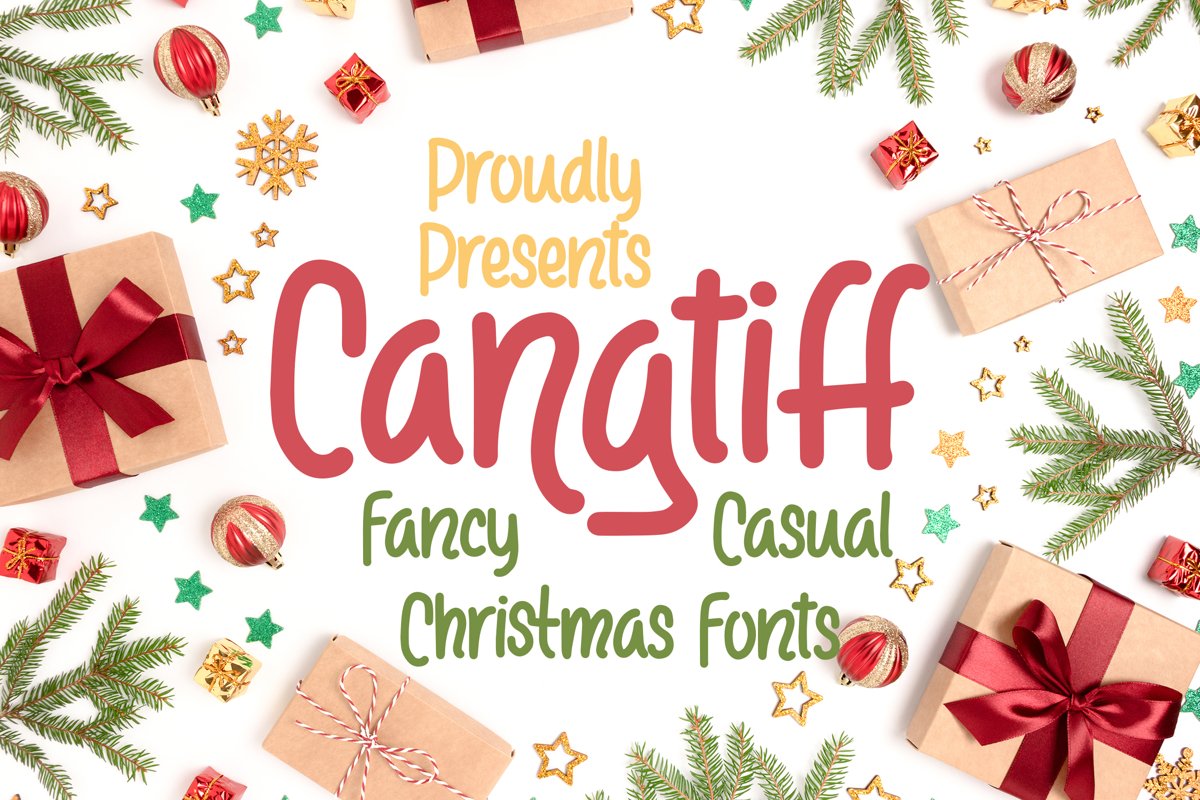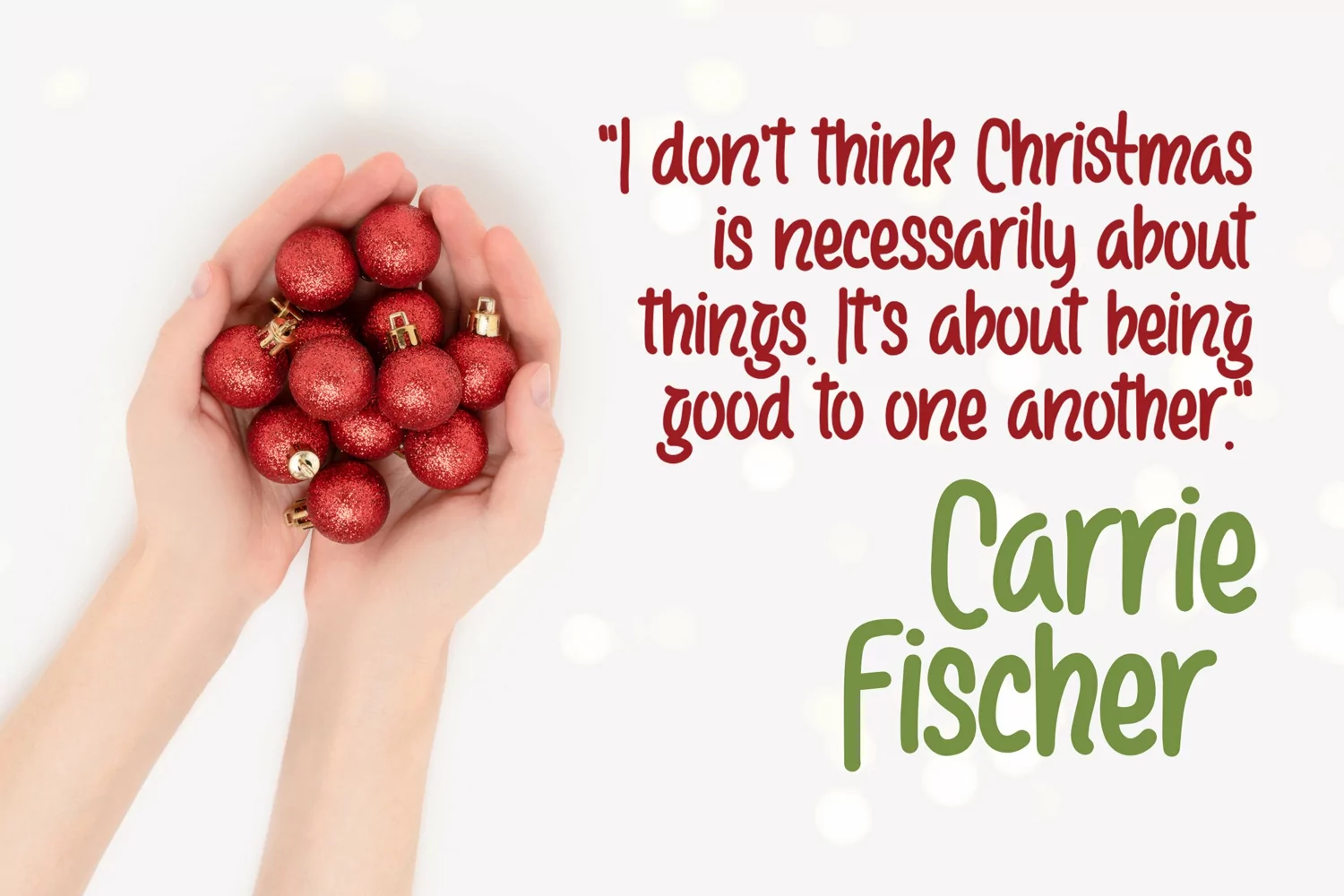
Cangtiff - fancy Chrismas Font that contain lowercase, uppercase, symbol, and also support multi language. There’s a lot ligatures in this font. This Font also comes with ligatures, alternates and many more. this font suitable for fashion, branding, catalog and other design what you want.
Cangtiff